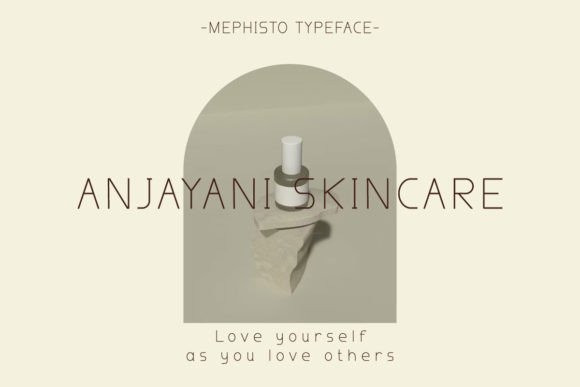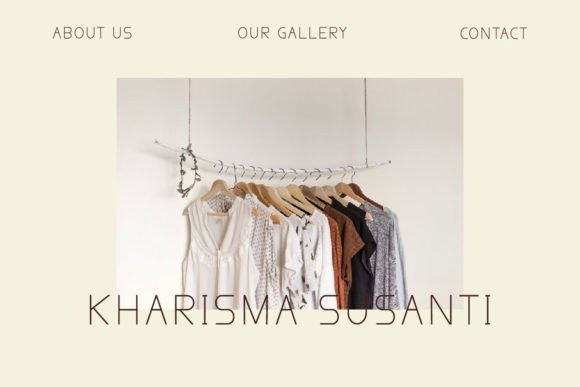
Mephisto Font
Mephisto Font, a delicate spin on a modern sans serif font. It is perfect for business cards, logos, watermarks, cards, invitations, social media and more.